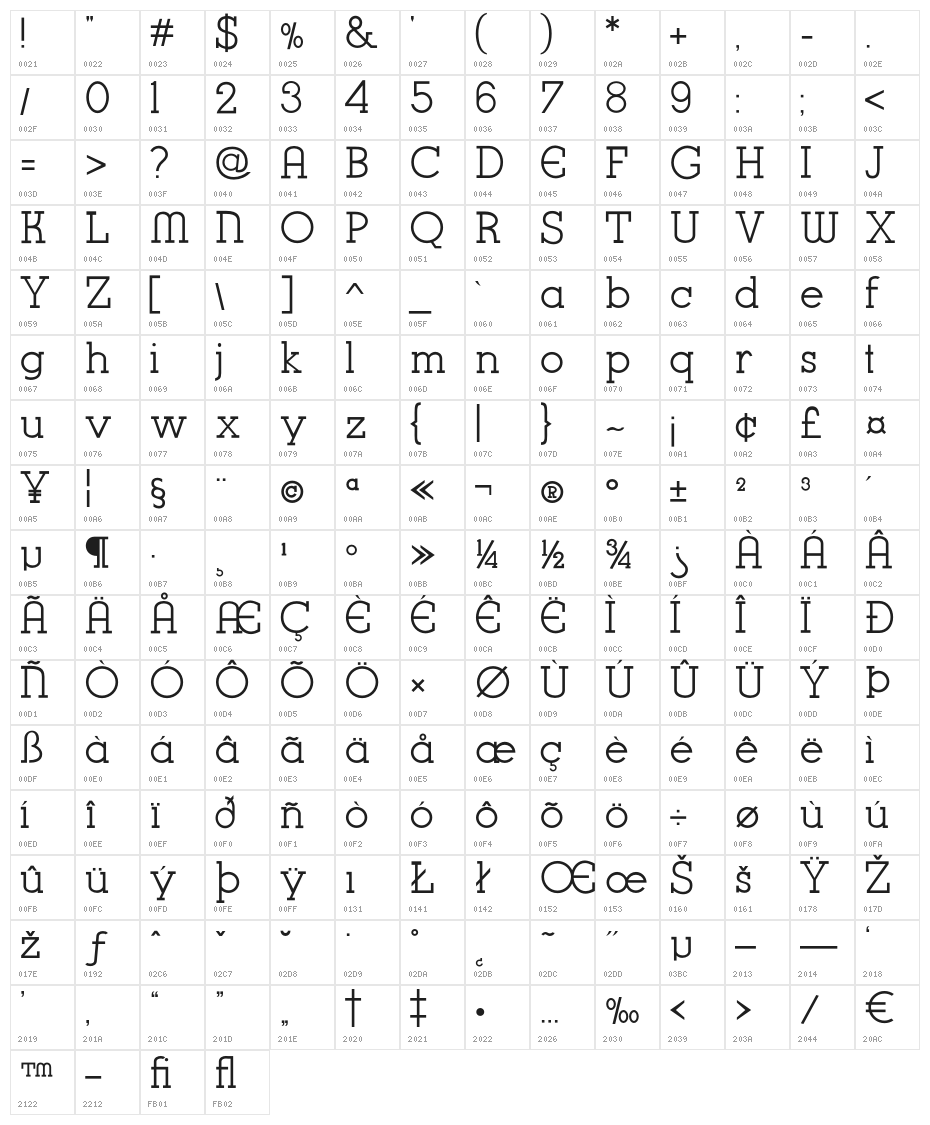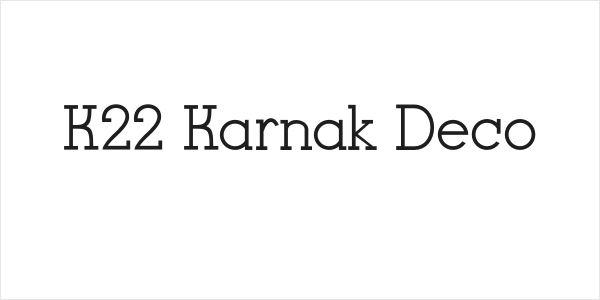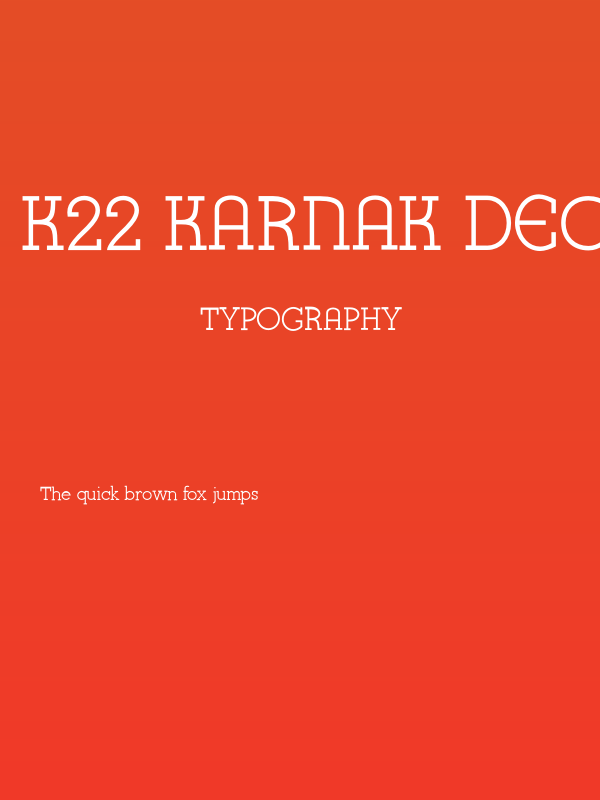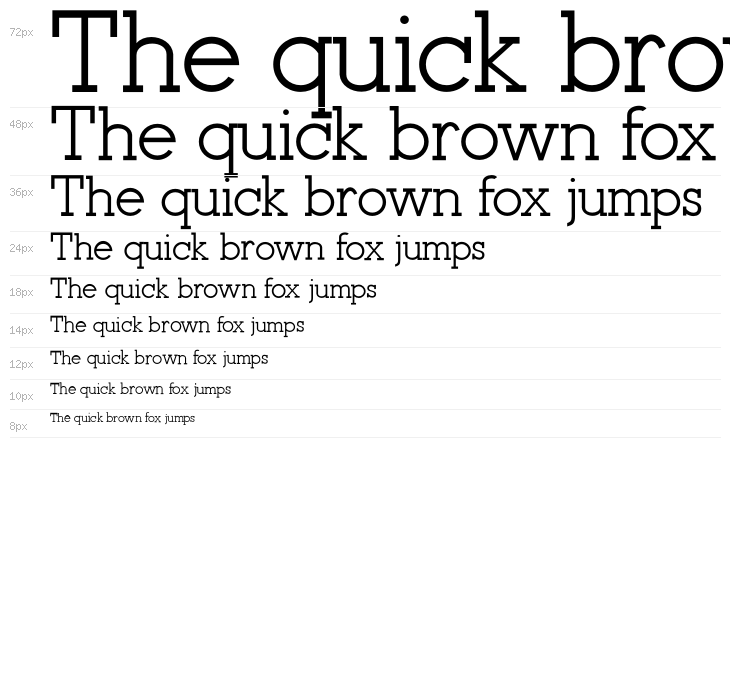
K22 Karnak Deco Font
K22 Karnak Deco Description
This font exhibits a clean and geometric design, characterized by its uniform stroke width and rounded edges. The uppercase letters are bold and commanding, while the lowercase letters maintain a consistent flow with slightly softer curves. Numbers are distinct and easy to read, making them suitable for various applications. Special characters are well-integrated, maintaining the overall aesthetic. The font's modern and minimalist style makes it versatile for both digital and print media.
| Proposed Projects | Ideal for branding, advertising, and editorial design projects where a modern and clean look is desired. |